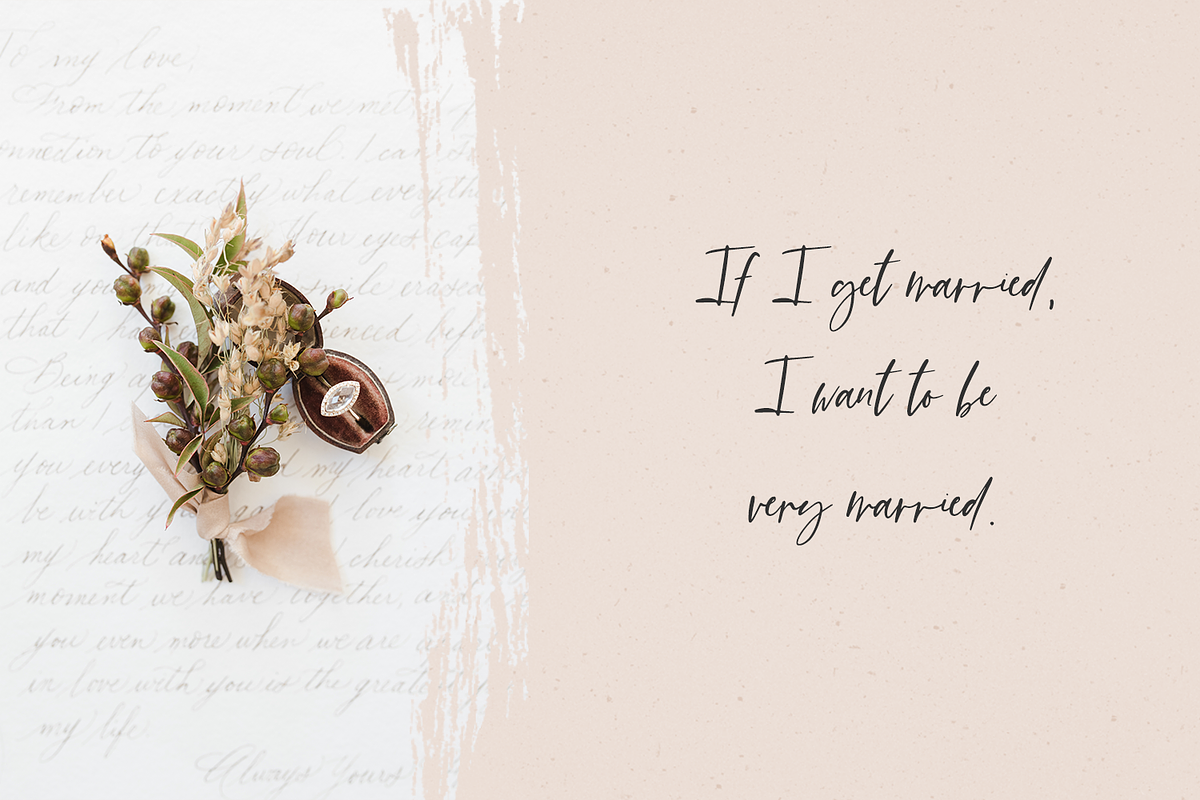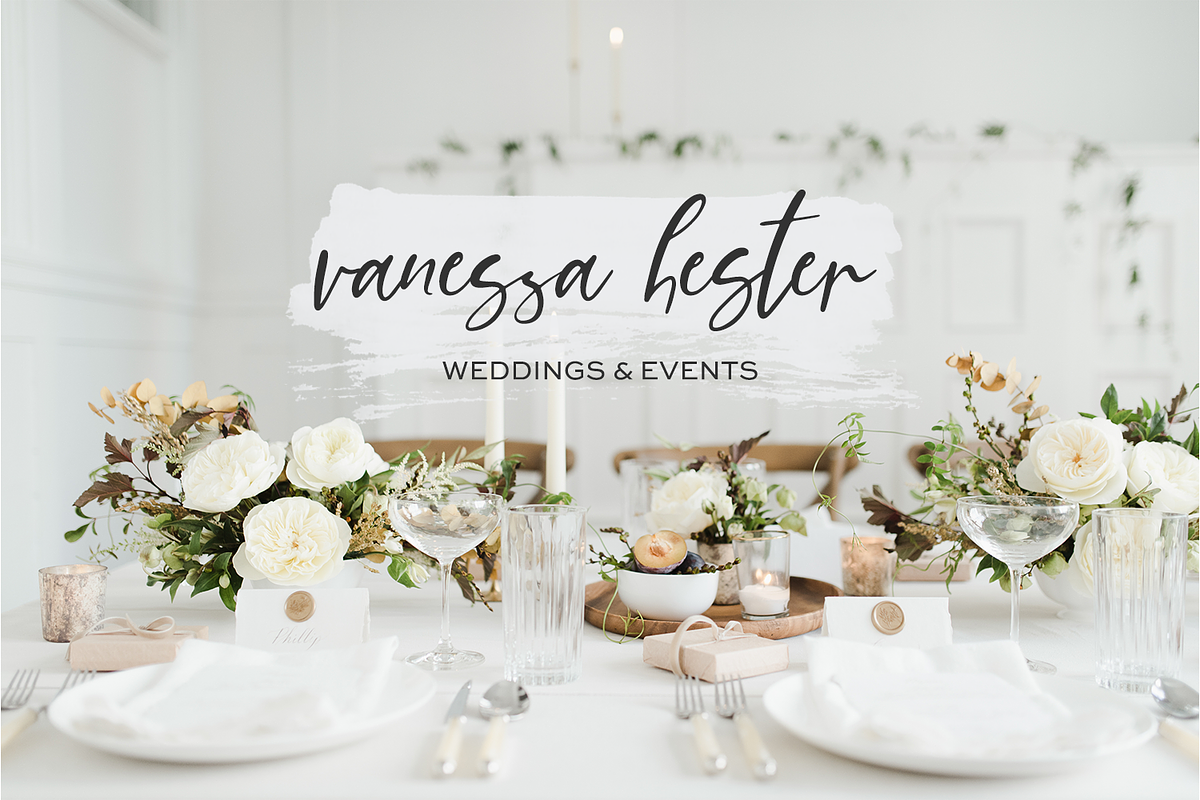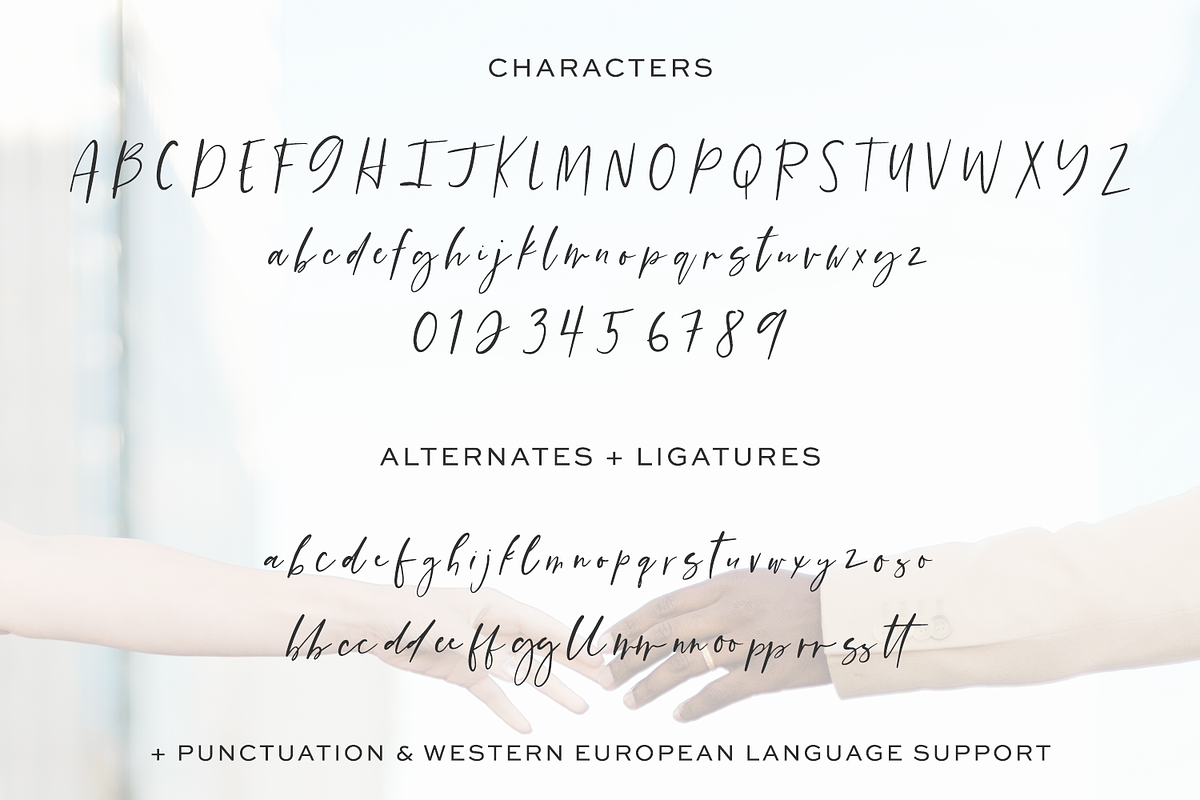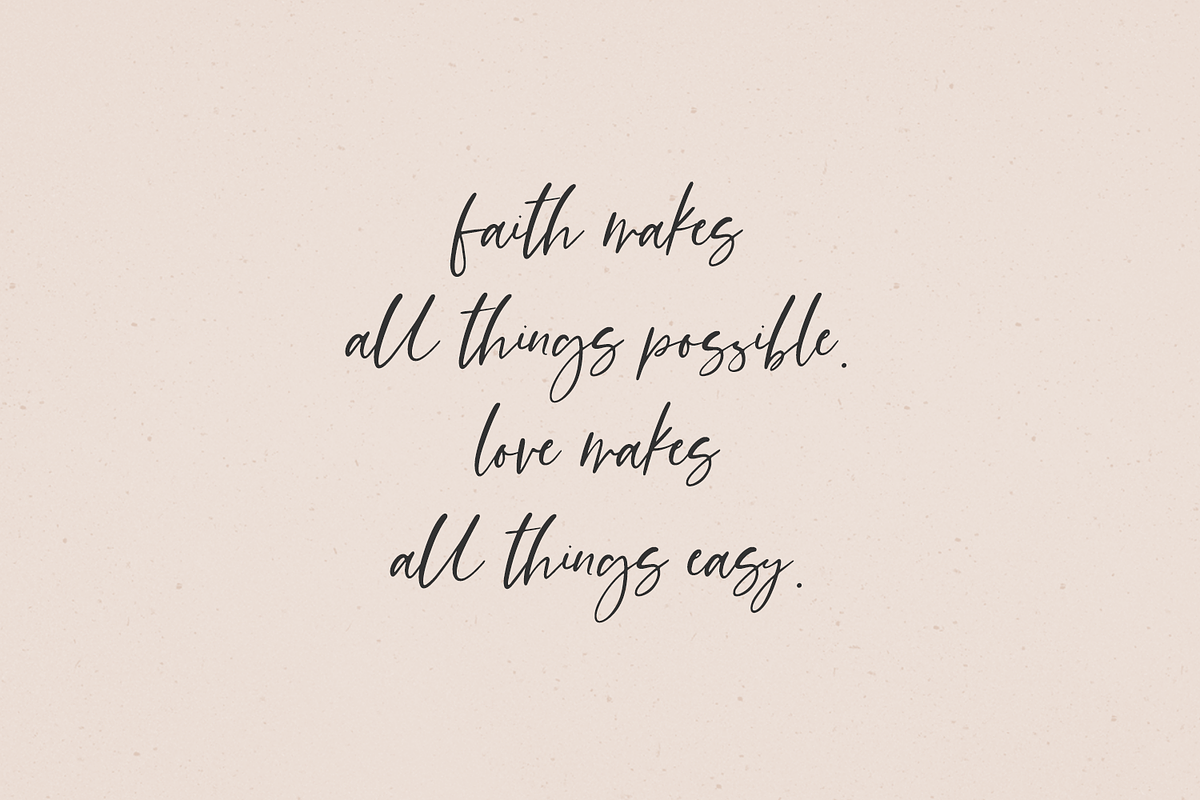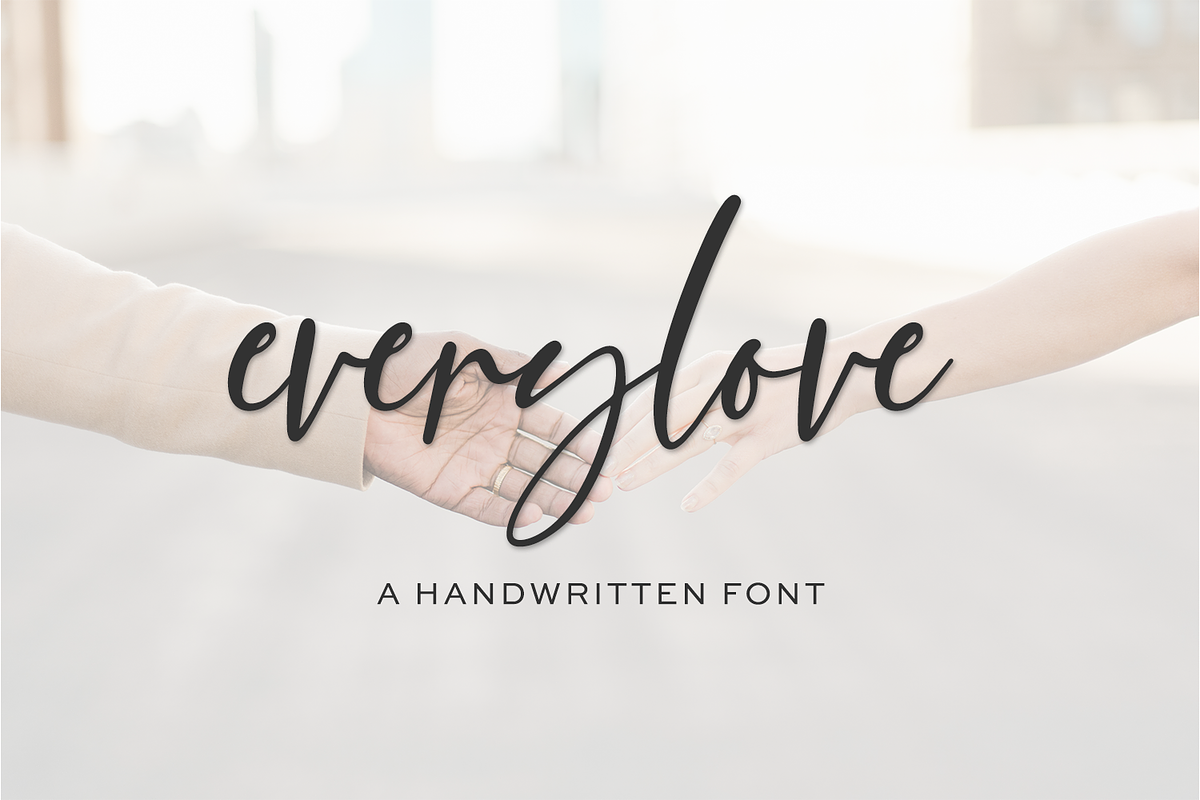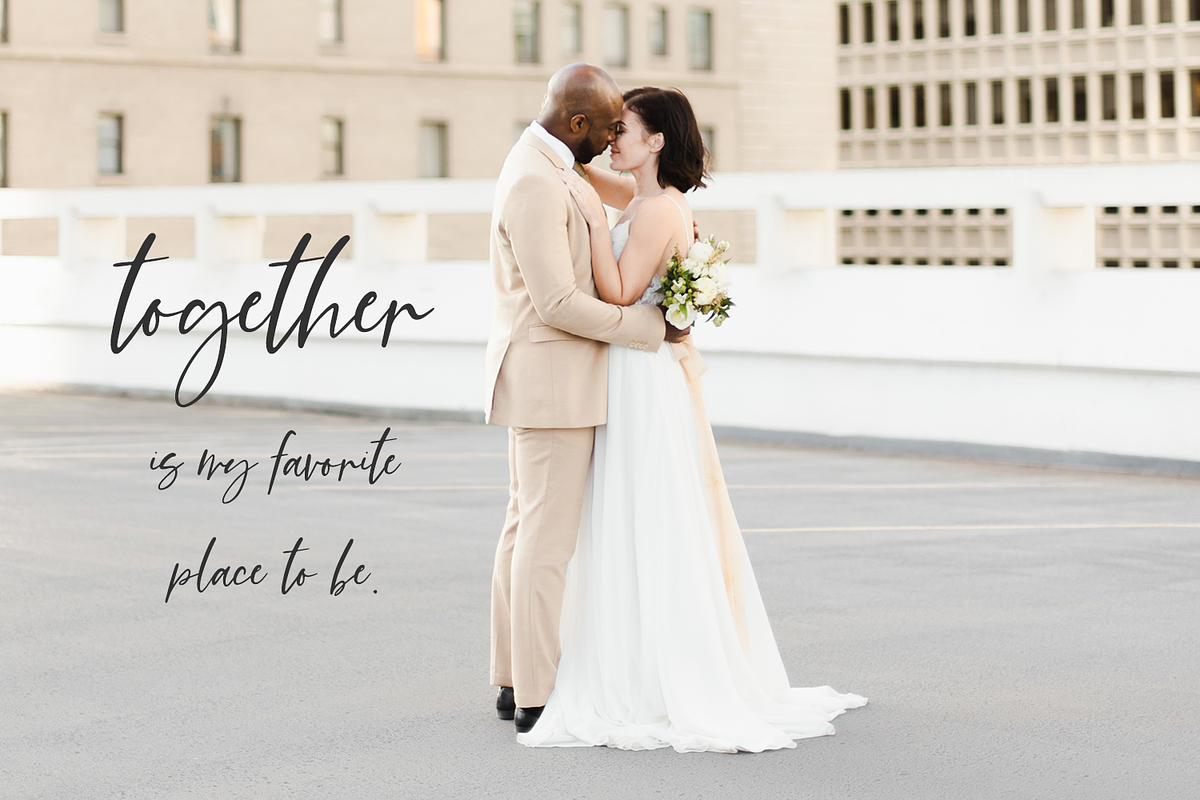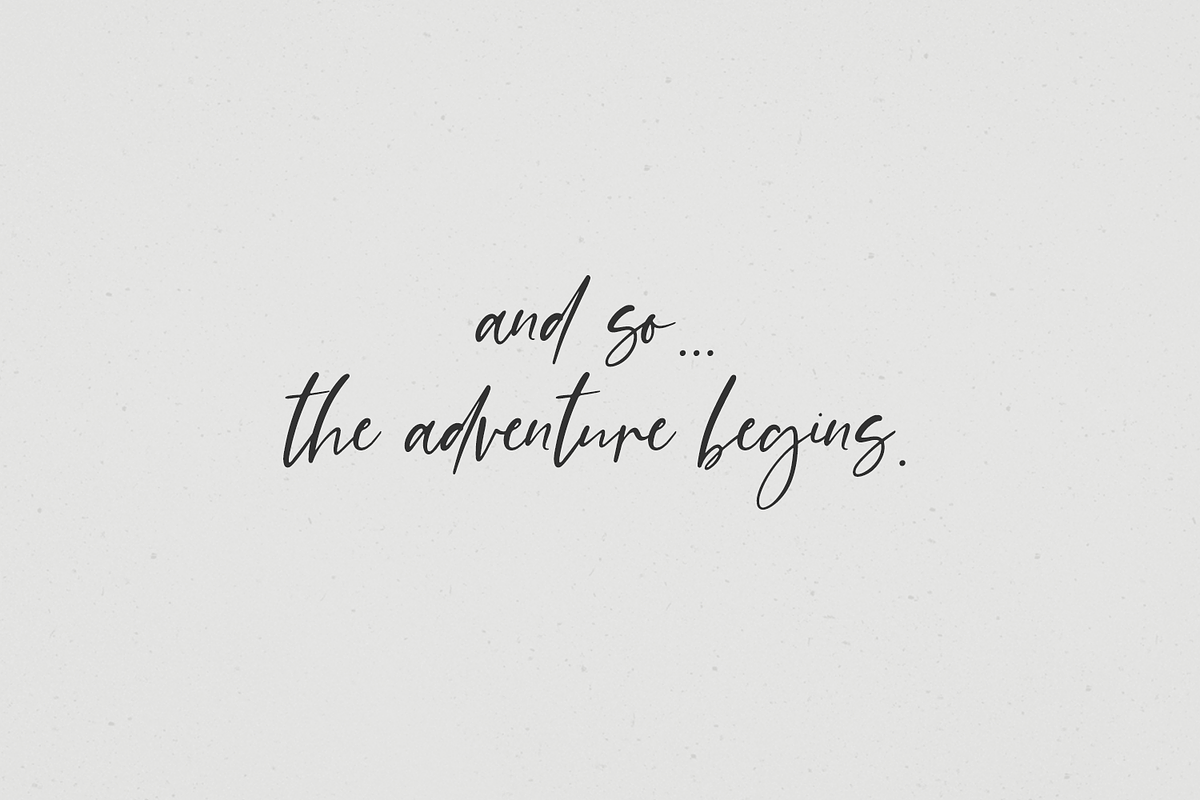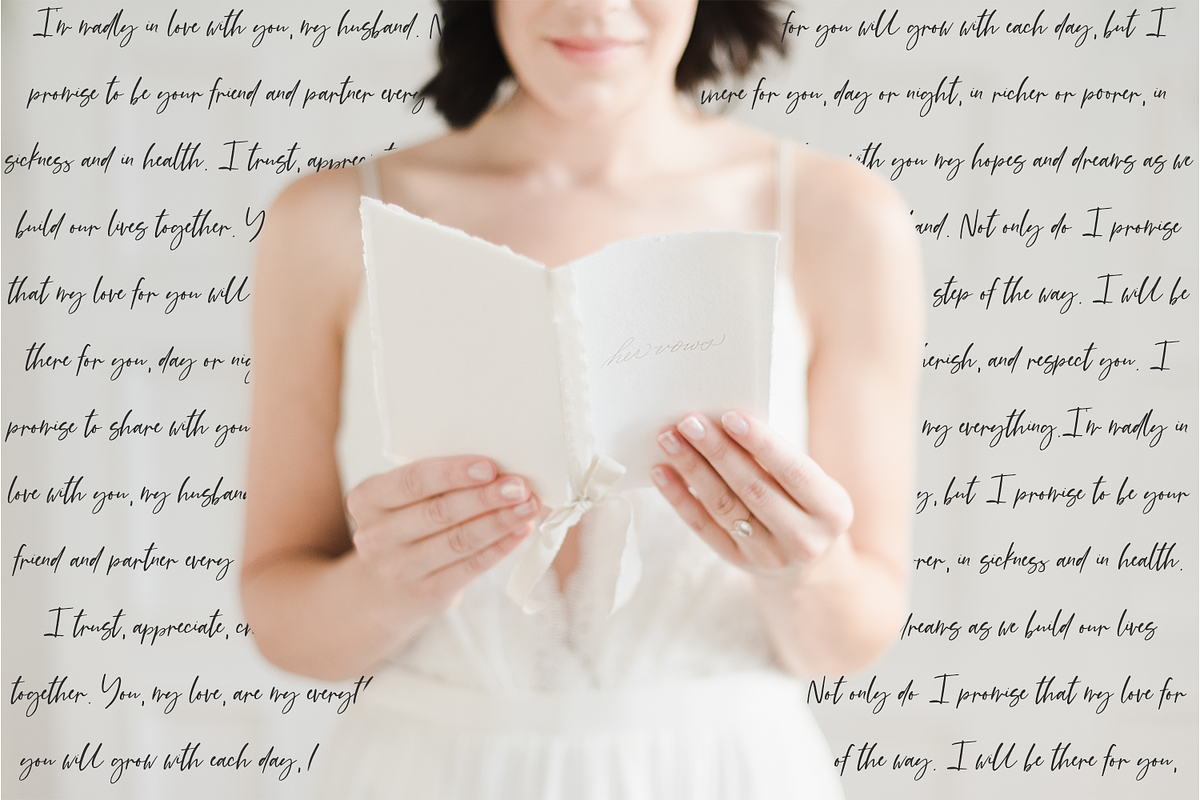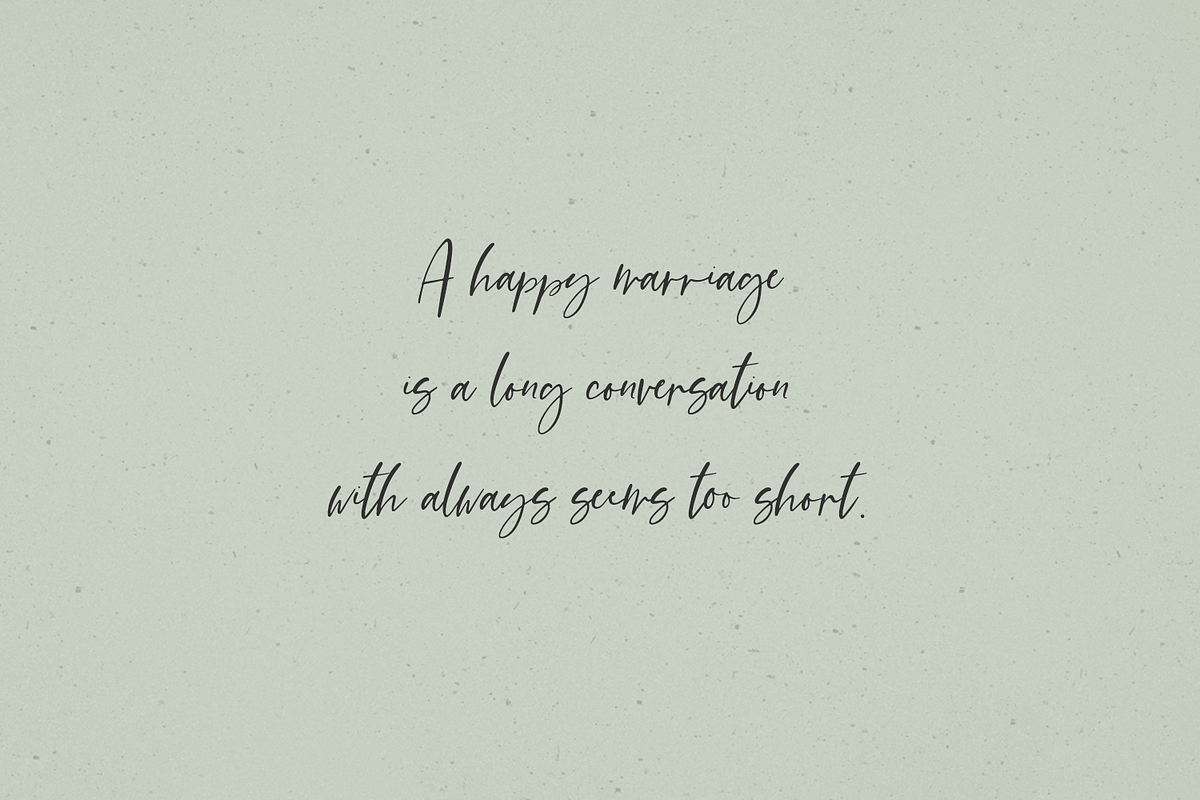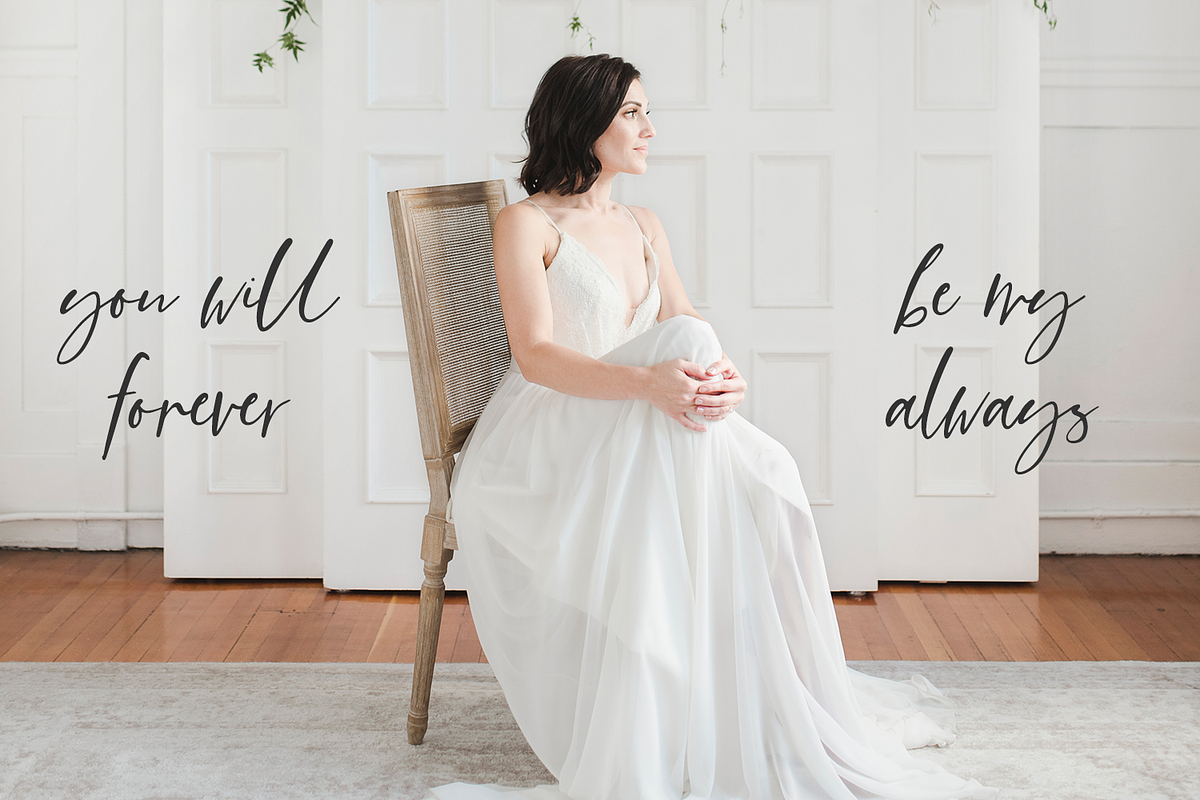
Everylove Script
Say hello to Everylove Script, a stylish signature font with alternates & ligatures.
- full upper + lowercase characters
- numbers + punctuation
- Western European Language Support
- 29 alternate characters
- 14 ligatures - bb, cc, dd, ee, ff, gg, ll, mm, nn, oo, pp, rr, ss, tt